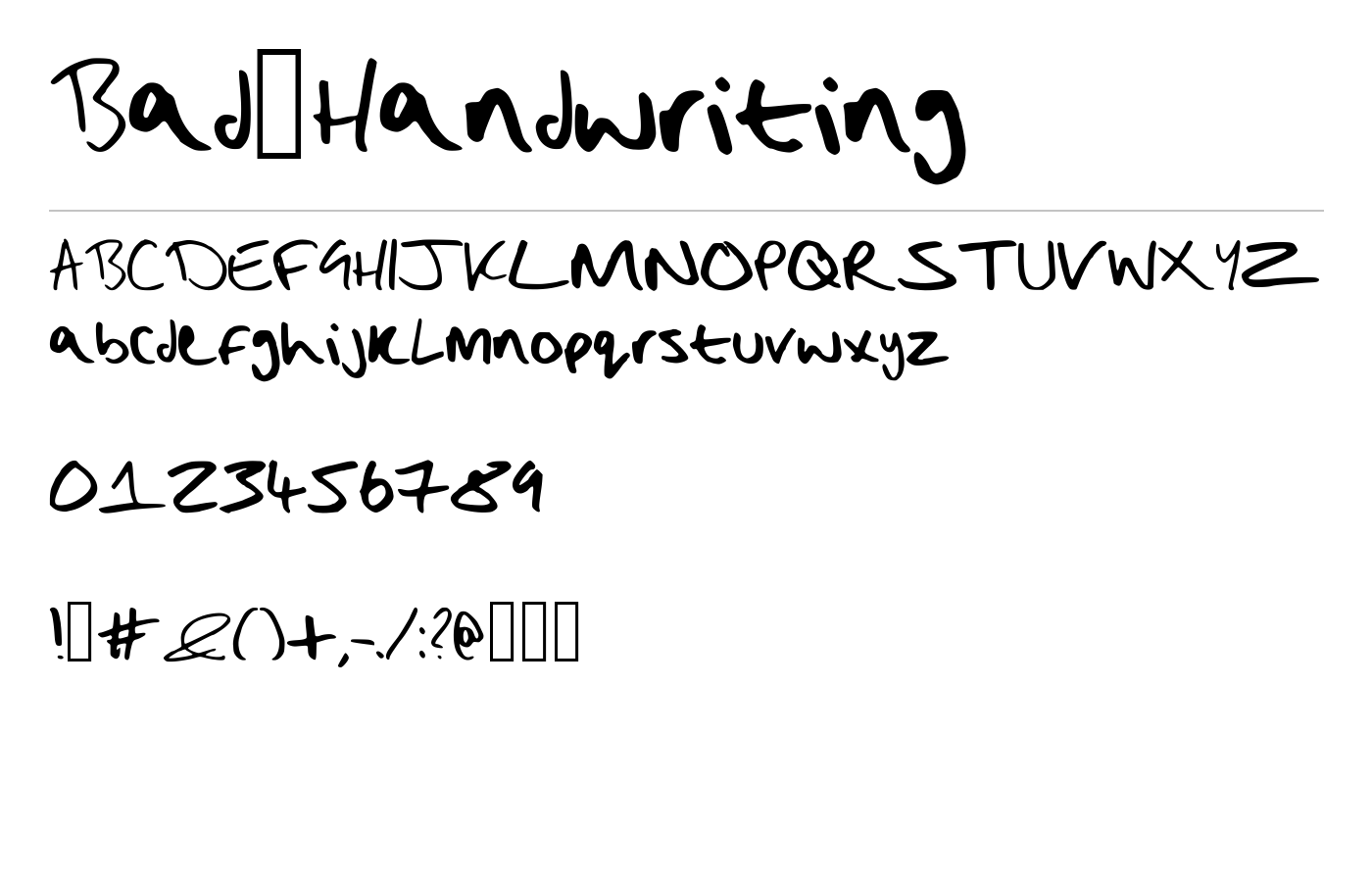
Bad_Handwriting is a casual, playful handwritten font that mimics imperfect, natural pen strokes with uneven lines and varying letter heights. Its informal and quirky style adds a personal, approachable feel, making it ideal for creative projects, children’s materials, and casual branding that seeks authenticity and charm. This font works best in headlines or short texts where a fun, relaxed atmosphere is desired.
Bad_Handwriting Font
About Bad_Handwriting Font